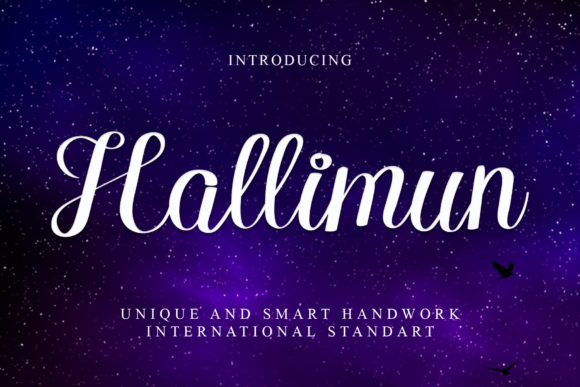
Dive into the captivating world of Hallimun Font, a script masterpiece meticulously crafted by BabyArt. This enchanting font echoes the playful essence of handwritten notes, inviting you to add a touch of whimsy and charm to your digital creations.
As a script font, Hallimun exudes a relaxed and effortless style, making it the perfect choice for adding a personal touch to logos, branding, social media posts, and any project that calls for a touch of individuality. Its graceful strokes and enchanting curves dance across the page, capturing the essence of handwritten elegance.
Beyond its aesthetic appeal, Hallimun Font is also incredibly versatile, lending itself effortlessly to a wide range of design concepts. Whether you're crafting an intimate wedding invitation, designing a heartfelt poster, or creating eye-catching social media graphics, Hallimun will effortlessly elevate your creations.
But don't just take our word for it. Hallimun Font has been hailed as the "Best Font for Monogram" for a reason. Its ability to transform ordinary letters into captivating symbols of love, friendship, and individuality is truly remarkable.
Imagine your wedding invitations adorned with Hallimun's graceful script, each letter entwined to create a timeless keepsake. Envision your social media posts standing out from the crowd, thanks to Hallimun's charming touch. Picture your posters and flyers capturing attention with Hallimun's magnetic appeal.
No matter how you choose to use it, Hallimun Font has the power to inject a sense of wonder and enchantment into your creations. Its whimsical spirit and versatility make it a must-have for any designer looking to add a touch of magic to their work.